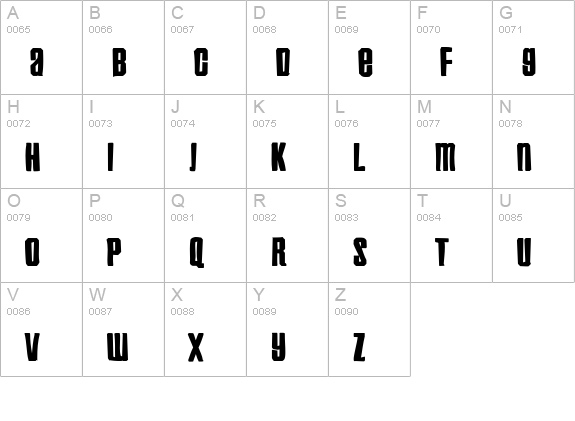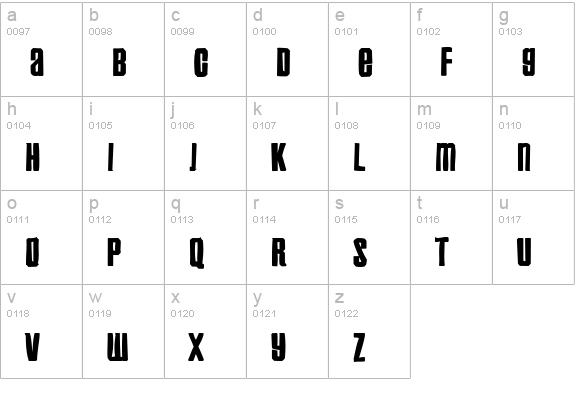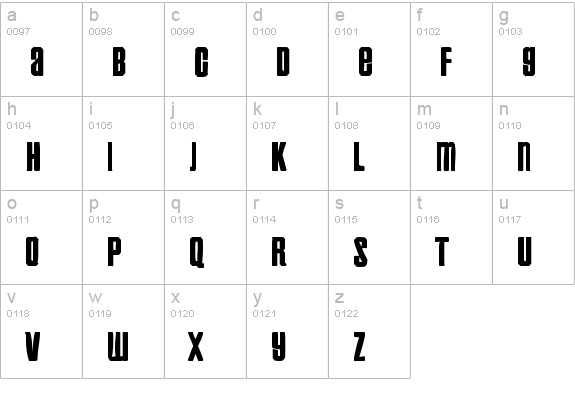
Inflammable Age Ink Font Details
Inflammable Age Ink font is a captivating and dynamic typeface that exudes a sense of energy and creativity. Its bold and expressive strokes make it ideal for adding a touch of edginess to any design project. This unique font captures the essence of rebellious youth and urban flair, making it perfect for music posters, album covers, and streetwear branding. What sets Inflammable Age Ink font apart is not only its striking appearance but also its versatility. Whether you're looking to make a bold statement or add a subtle touch of drama, this font has got you covered. Its rugged and distressed look adds character and depth to any text, making it stand out from the crowd. And the best part? Inflammable Age Ink font is completely free to download at FontsMarket.com. That's right, you can unleash your creativity and make a powerful impact with this font without breaking the bank. So why wait? Download Inflammable Age Ink font today and let your designs ignite with passion and style.